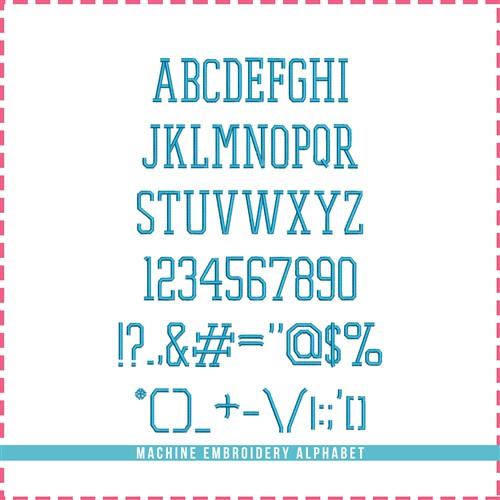
Promesh Font Embroidery Font - Bold Block Lettering - 17 Sizes 0.25" TO 7" - PES, DST & 7 formats by Maya Kreations and other embroidery fonts available at EmbroideryDesigns.com.
Maya Kreations is happy to present Promesh Font Embroidery Font - Bold Block Lettering - 17 Sizes 0.25" TO 7" - PES, DST & 7 formats machine embroidery font which has Bold block machine embroidery font ideal for vibrant designs on uniforms and accessories. This font is available in PES, DST, and 7 other formats. included. If you would like to view more embroidery fonts and alphabets please search our embroidery fonts page.